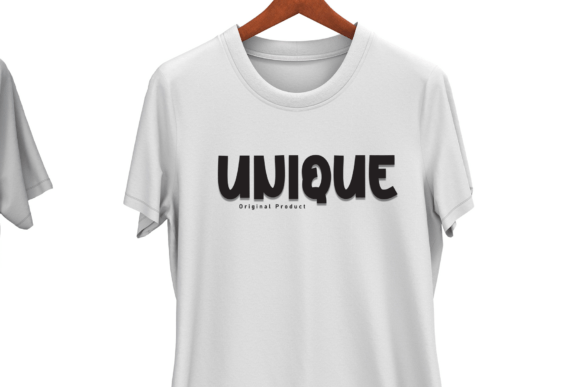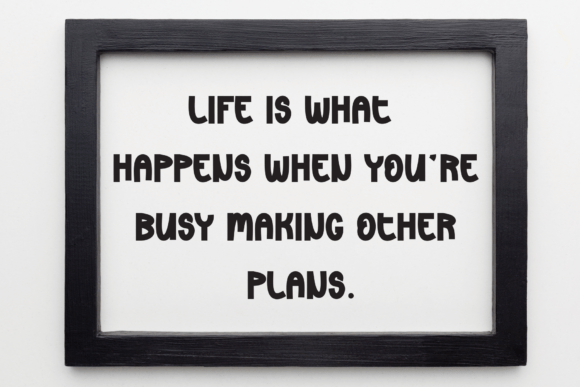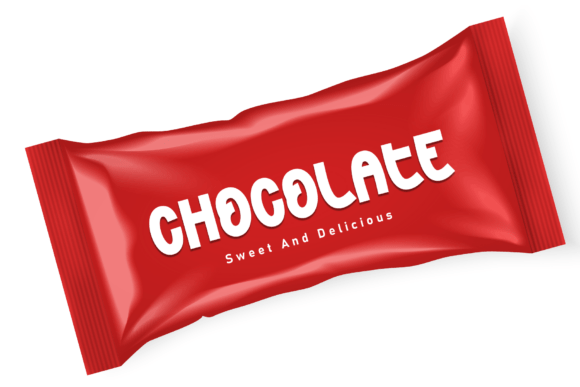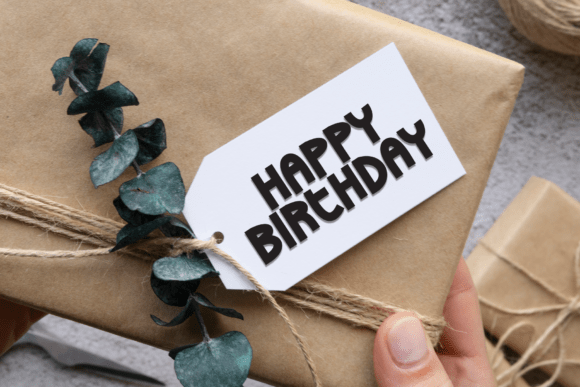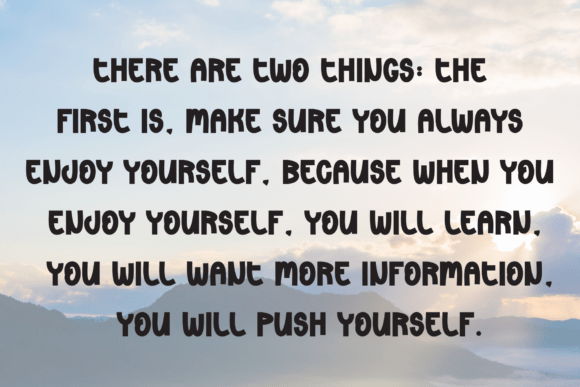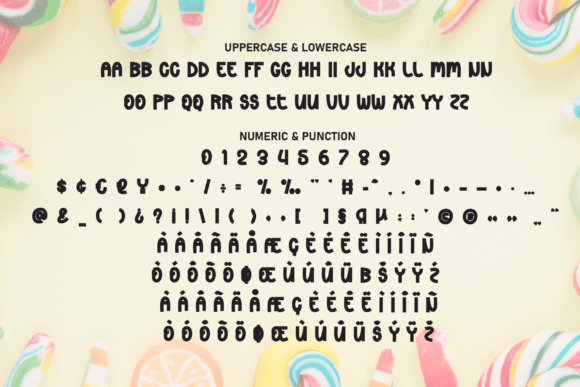
Cute Candy Font: A Delightful Typeface for Creative Designs
Are you looking for a font that can add a playful touch to your designs? Do you want to create wedding invitations, greeting cards, or other materials that exude warmth and friendliness? Look no further than the Cute Candy Font, a charming, handcrafted display font that is sure to bring a smile to your audience’s faces.
A Fusion of Elegance and Whimsy
The Cute Candy Font is a unique typeface that combines the elegance of traditional fonts with the whimsy of a playful, hand-drawn design. Each stroke is carefully crafted to convey a sense of fun and creativity, making it perfect for designers and crafters who want to add a dash of personality to their work.
Whether you’re designing wedding invitations, greeting cards, or other materials, the Cute Candy Font is sure to make your work stand out. Its delightfully quirky charm is sure to capture the attention of your audience and leave a lasting impression.
Perfect for Creative Designs
The Cute Candy Font is a versatile typeface that can be used in a variety of creative designs. Here are some ideas to get you started:
• Wedding invitations: Add a playful touch to your wedding invitations with the Cute Candy Font. It’s perfect for couples who want to convey their fun and adventurous personalities.
• Greeting cards: Create unique and personalized greeting cards with the Cute Candy Font. It’s perfect for birthdays, holidays, and other special occasions.
• Party decorations: Use the Cute Candy Font to create fun and playful party decorations, such as banners, garlands, and signs.
• Digital designs: The Cute Candy Font is also perfect for digital designs, such as social media graphics, blog posts, and email newsletters.
Why Choose the Cute Candy Font?
There are many reasons why you should choose the Cute Candy Font for your next design project. Here are a few:
• Unique and playful: The Cute Candy Font is a one-of-a-kind typeface that is sure to add a playful touch to your designs.
• Handcrafted: Each stroke of the Cute Candy Font is carefully handcrafted to convey a sense of warmth and friendliness.
• Versatile: The Cute Candy Font can be used in a variety of creative designs, from wedding invitations to digital designs.
• Elegant and whimsical: The Cute Candy Font combines the elegance of traditional fonts with the whimsy of a playful, hand-drawn design.
How to Use the Cute Candy Font
Using the Cute Candy Font is easy. Here are a few tips to get you started:
• Pair it with other fonts: The Cute Candy Font can be paired with other fonts to create a unique and interesting design.
• Use it in large sizes: The Cute Candy Font is perfect for large sizes, such as headings and titles.
• Add embellishments: Consider adding embellishments, such as glitter or confetti, to give your design an extra touch of whimsy.
The Cute Candy Font is a delightful typeface that is sure to add a playful touch to your designs. Its unique and whimsical design makes it perfect for wedding invitations, greeting cards, and other creative designs. Whether you’re a designer or crafter, the Cute Candy Font is a great choice for anyone looking to add a dash of personality to their work.